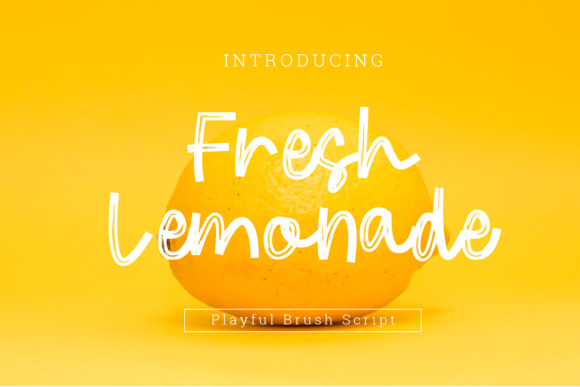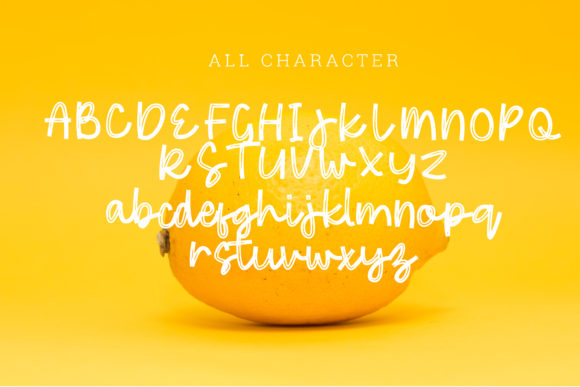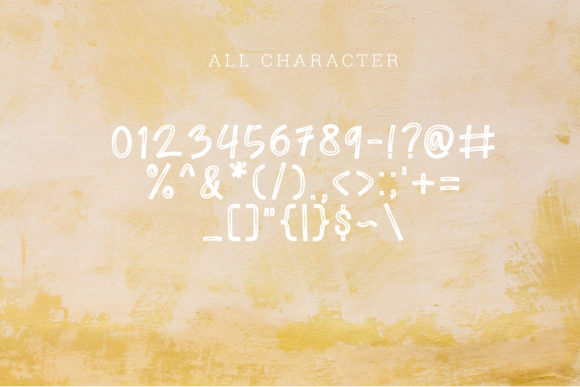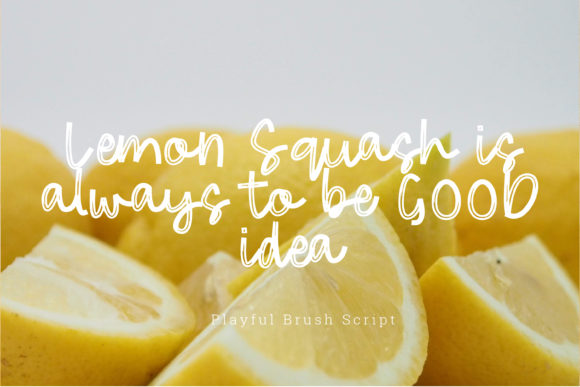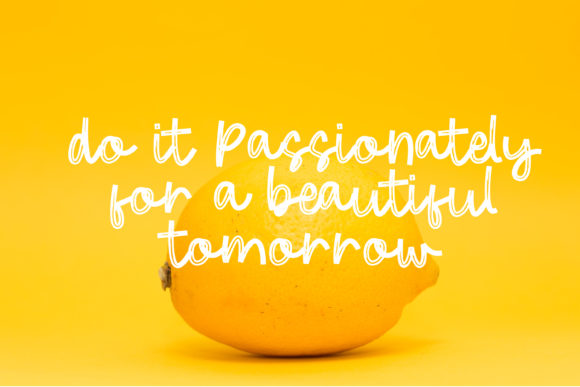
Fresh Lemonade Font
About Fresh Lemonade Font
Fresh Lemonade is a delightful and inviting handwritten font, crafted with the grace of a brush pen. Its natural and flowing style exudes a sense of warmth and friendliness, making it a perfect choice for a wide range of creative projects. From captivating Instagram posts to charming calligraphy scripts for DIY endeavors, this font breathes life into every creative idea, transforming them into genuine works of art.
The charmingly unique characters of Fresh Lemonade add a touch of personality to your designs, setting them apart from the ordinary. Its versatility shines through as it seamlessly adapts to various design purposes, be it crafting beautiful wedding invitations, designing eye-catching logos, or creating heartwarming greeting cards.
The authenticity and artistic flair of Fresh Lemonade make it an ideal companion for both digital and physical creations. Use it to add a handwritten touch to your social media posts, making your content more relatable and engaging to your audience. Alternatively, bring your DIY projects to life with its flowing strokes, elevating every handmade item to a realm of creativity and charm.
Fresh Lemonade is a font that embraces creativity and encourages exploration. Its brush pen-inspired style exudes a sense of authenticity and craftsmanship, adding depth and character to your designs. As you dive into the world of design possibilities, this font will accompany you, turning every idea into a true masterpiece.
Whether you’re a professional designer or an aspiring artist, Fresh Lemonade opens a world of opportunities to express your creativity. Its versatility transcends styles and themes, allowing you to experiment with different aesthetics while maintaining a consistent touch of elegance and sweetness.
So, take a sip of Fresh Lemonade and let its sweetness infuse your designs with joy and warmth. Allow it to be the brush that paints your imagination onto the canvas of creativity, leaving a trail of delightful and memorable creations in its wake. The world of art is at your fingertips, and with Fresh Lemonade, every idea becomes a true piece of art, capturing hearts and leaving a lasting impression on all who encounter it.